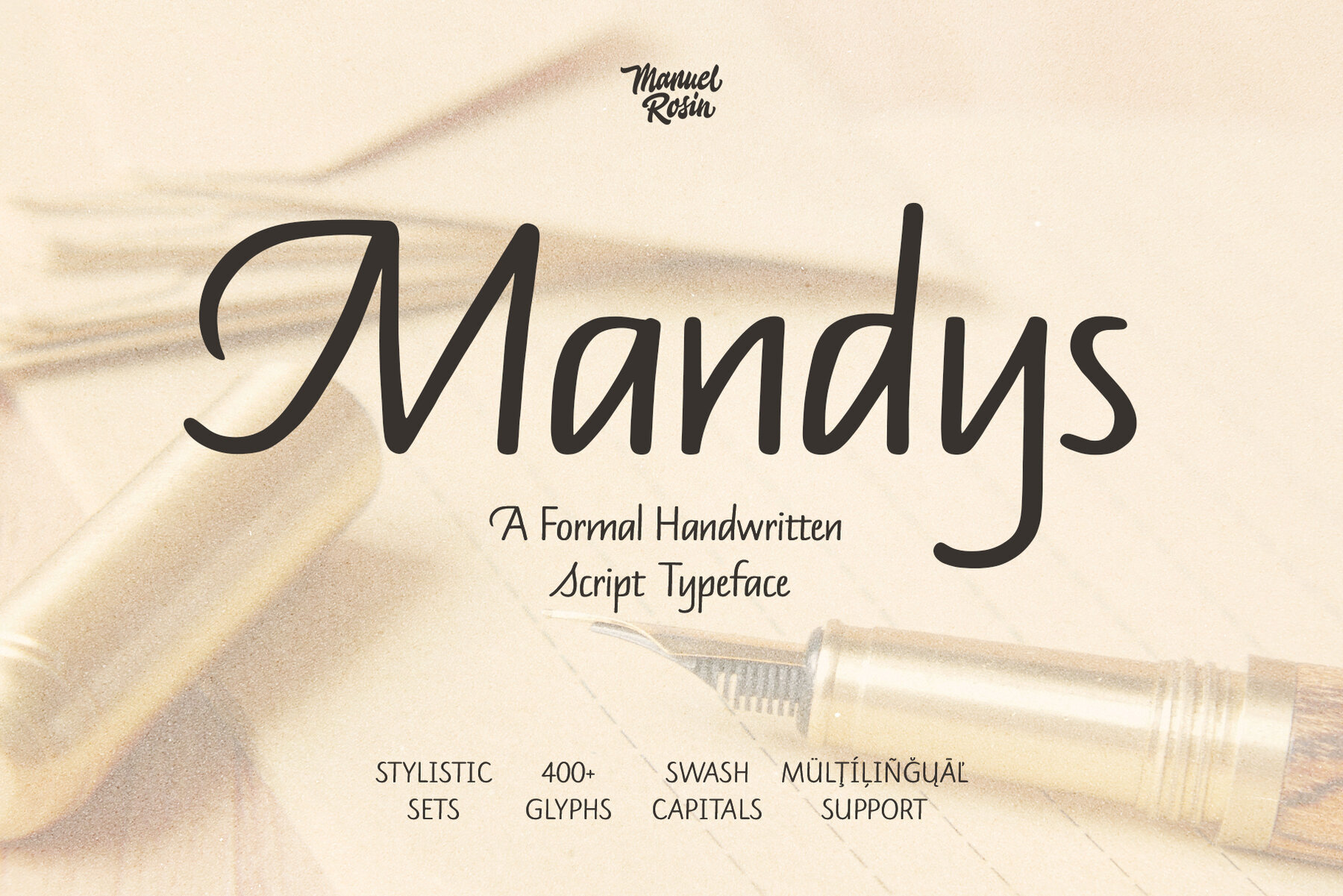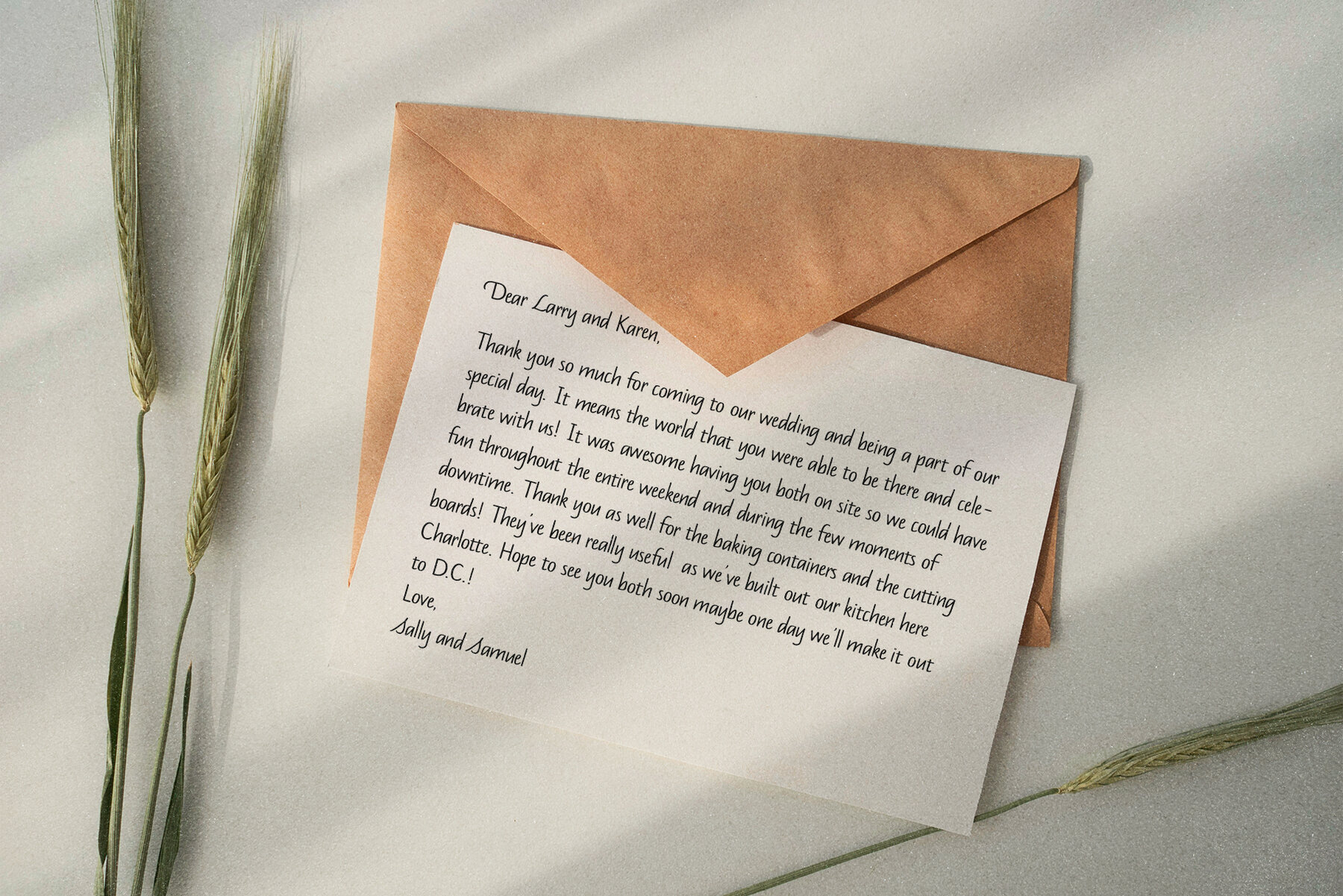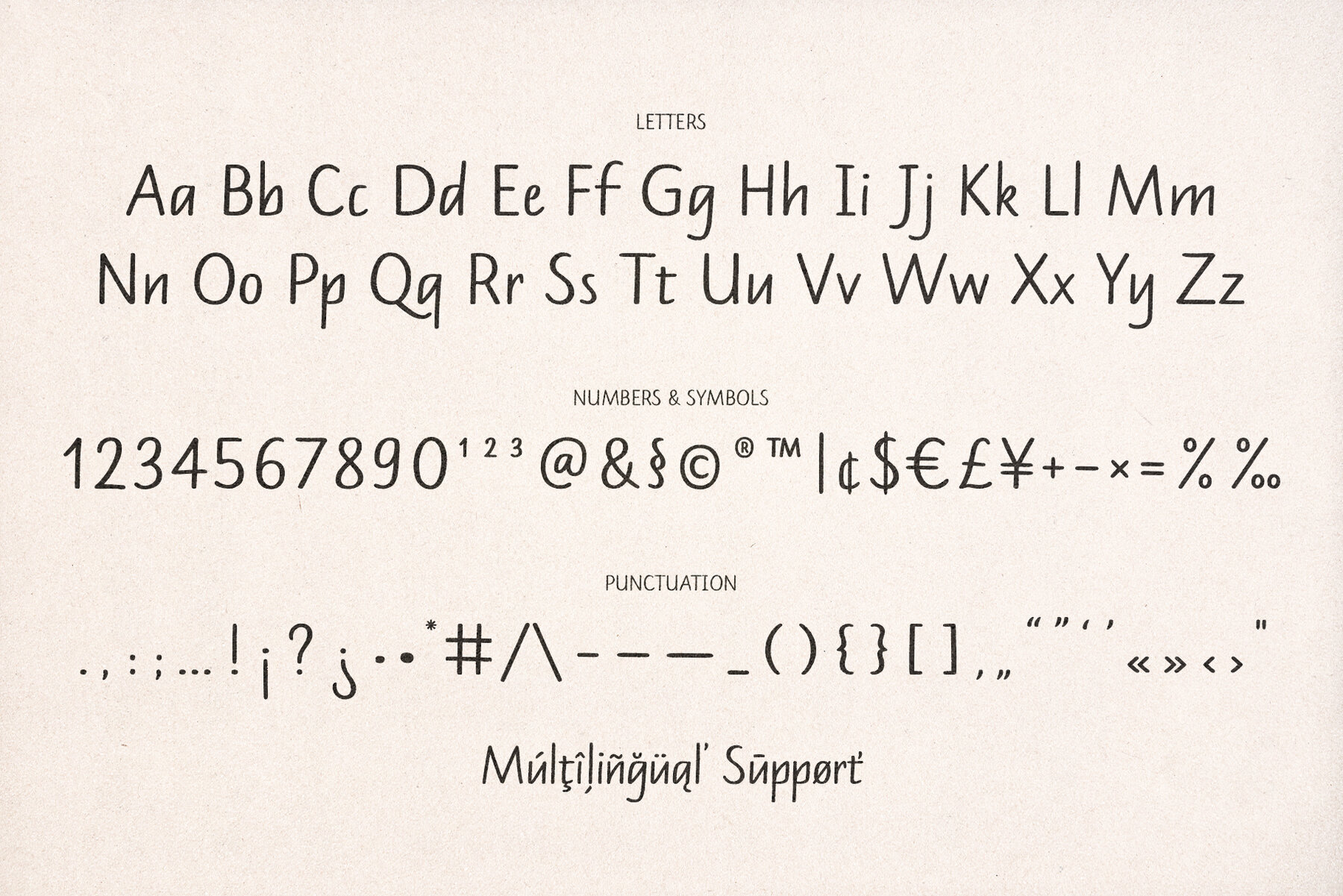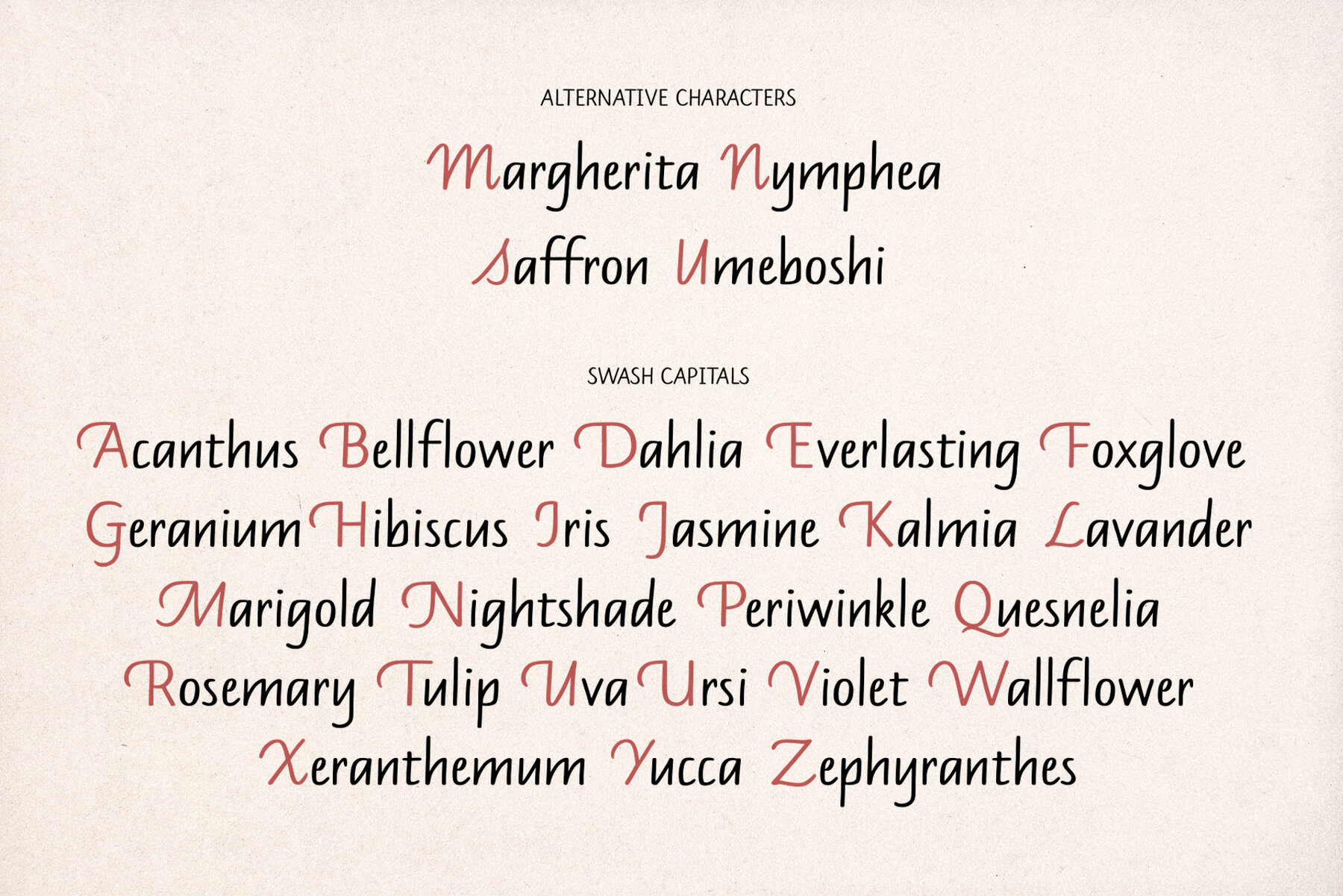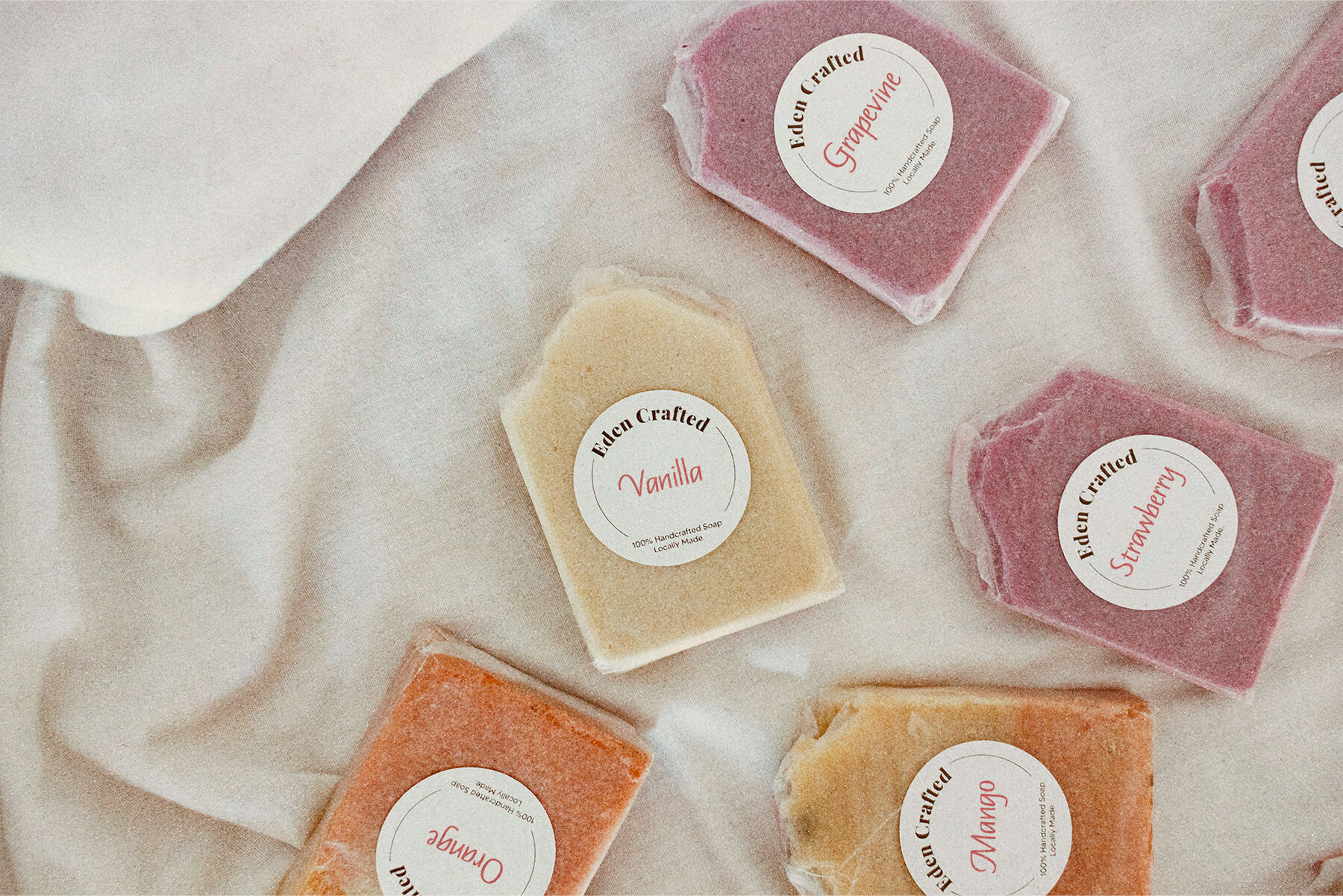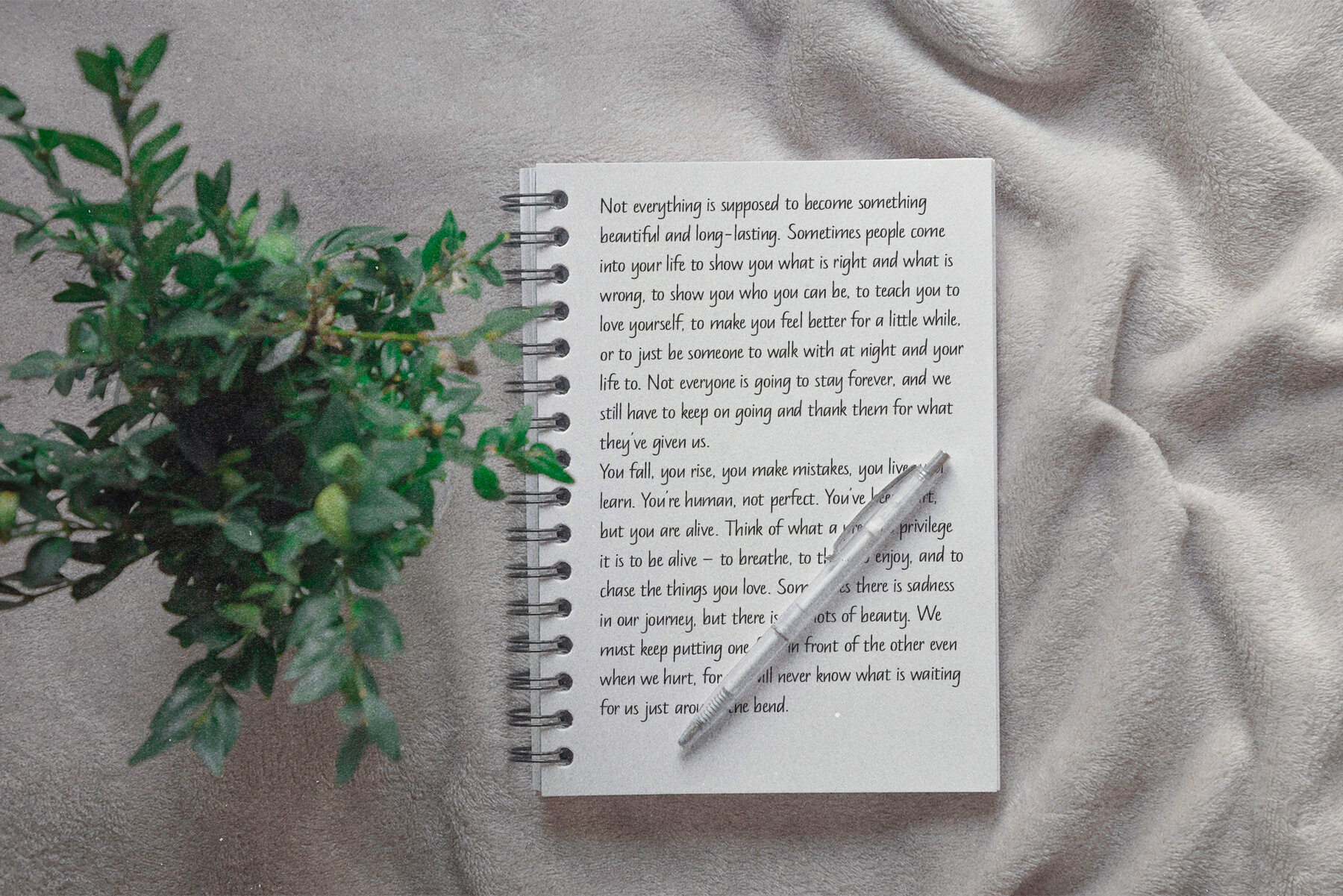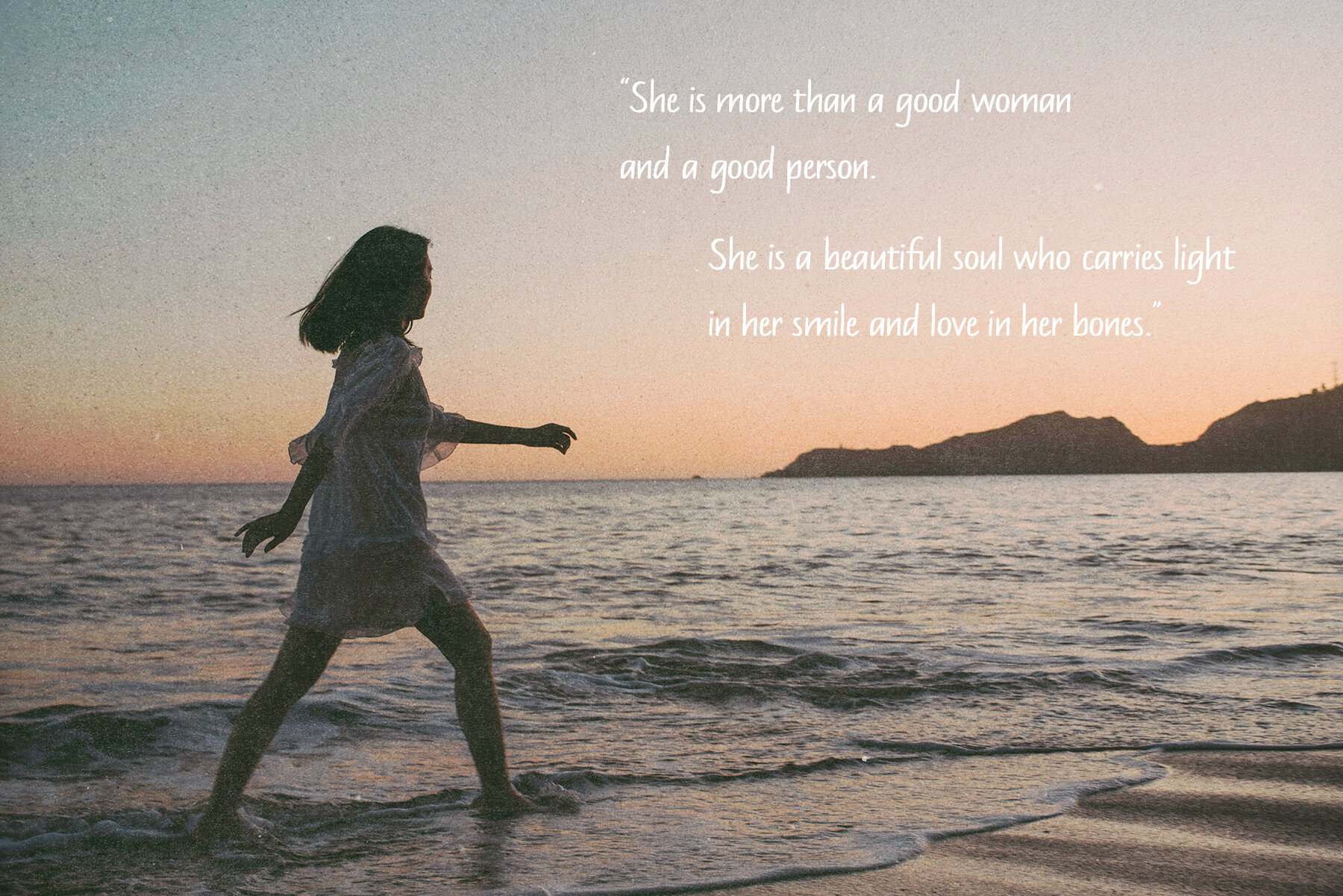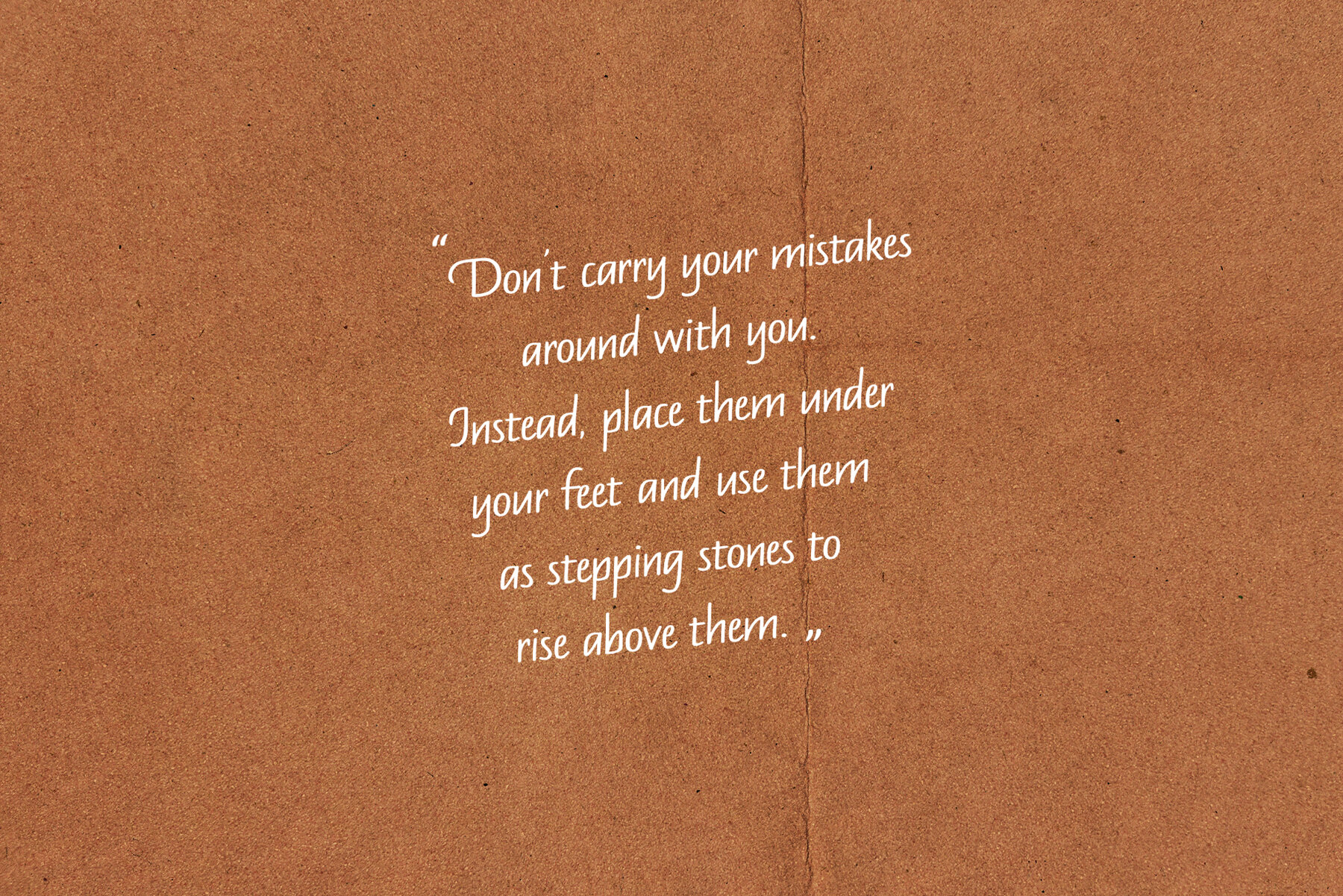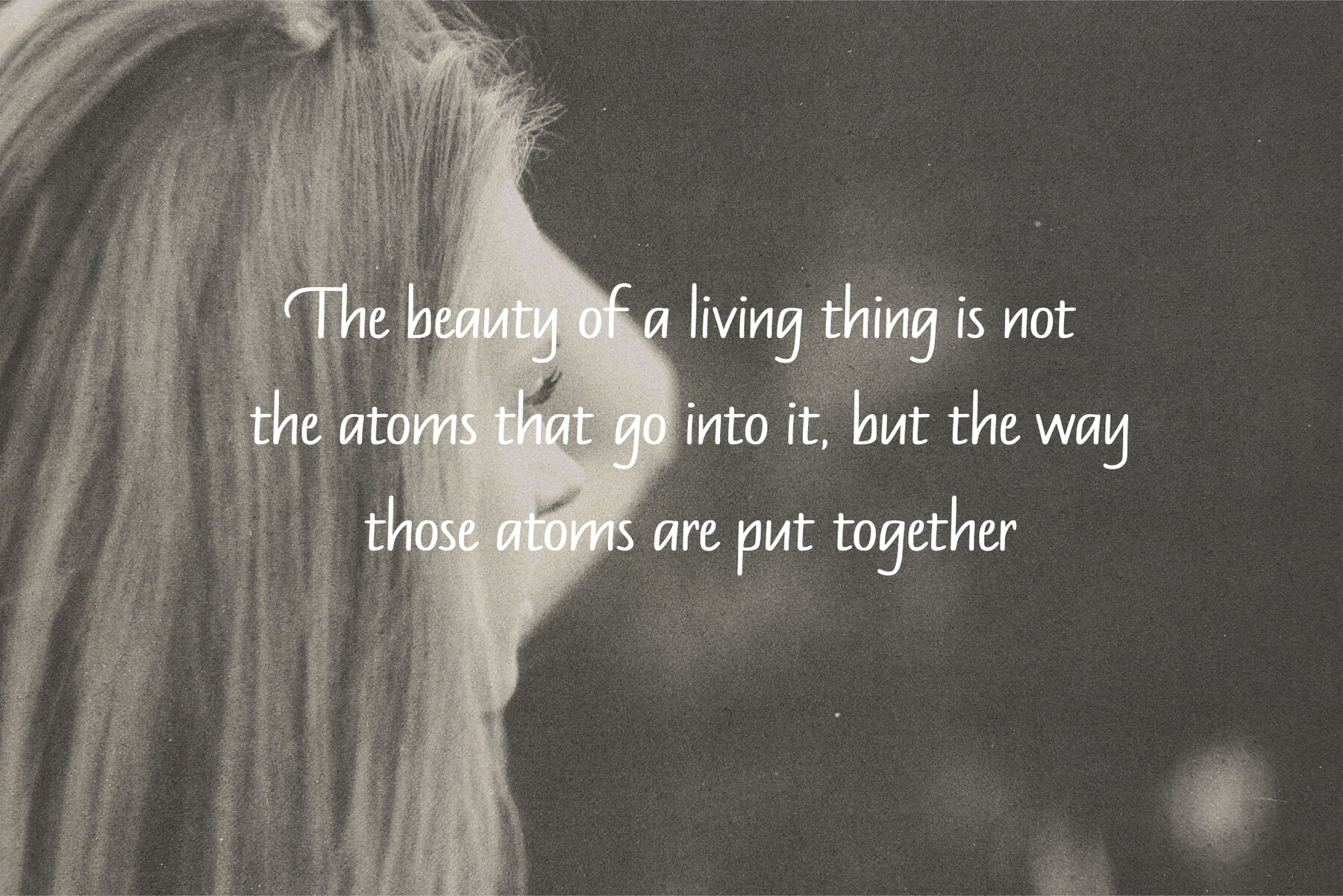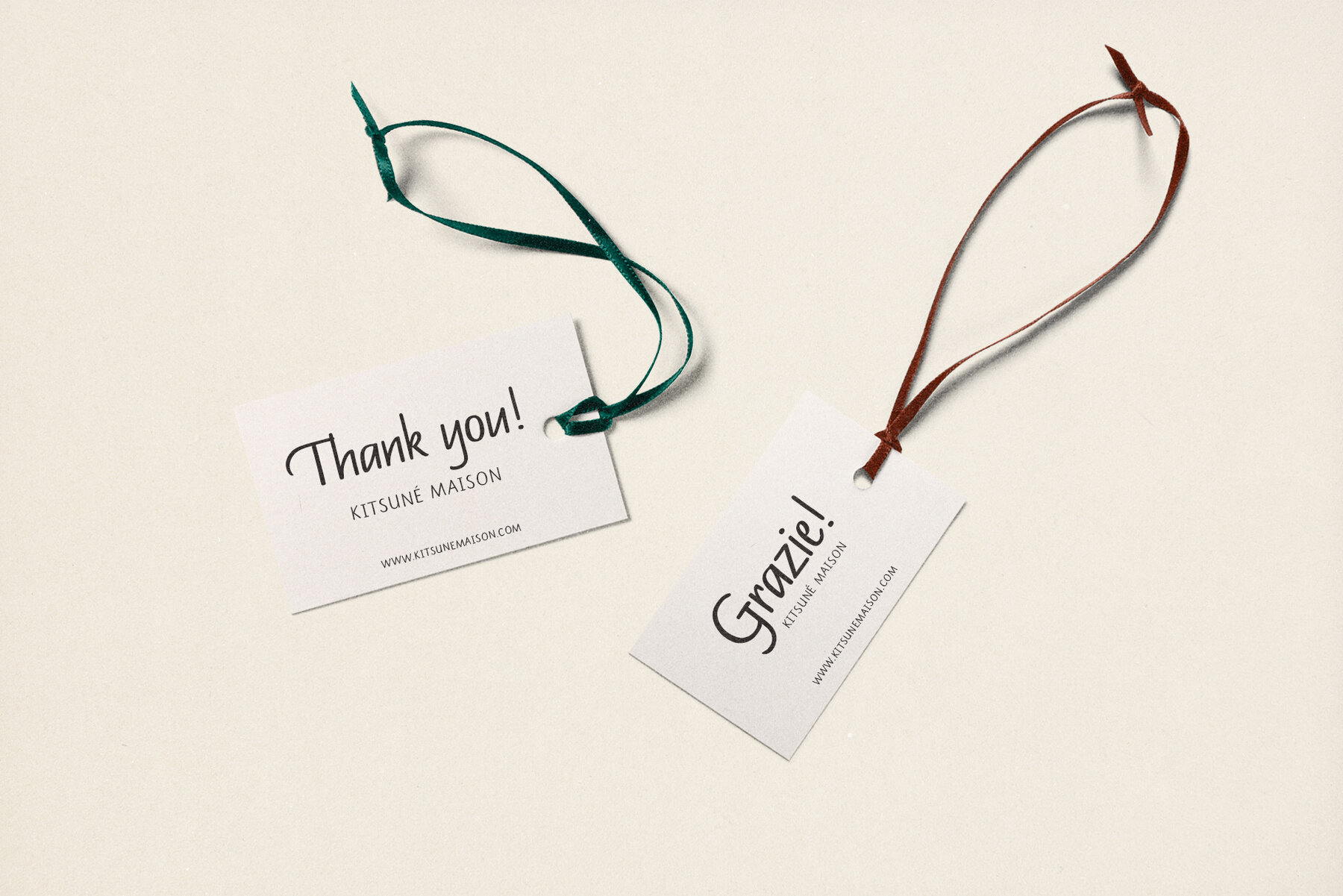
Mandys Font
Mandys Regular
Mandys is a handwritten script typeface that takes inspiration from skeleton of formal handwritten Italic hand. It is completely handmade with a pointed brush pen to keep the naturalness and imperfections of handwritten notes.
Mandys consists of more than 400 glyphs, with some Stylistic alternates, Swashes Capitals and supports over 240 languages. It is ideal for notes, labels, invitations, handwritten quotes, branding or any project that needs an authentic handwritten touch.